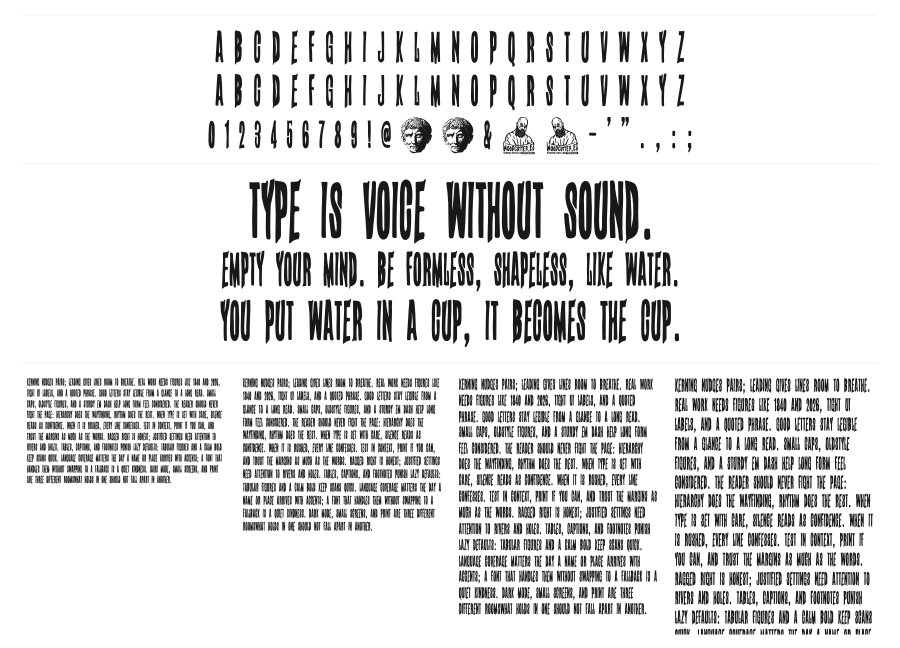
Caligula Corporation
Caligula Corporation is a tall, condensed display face from Woodcutter with heavy weight and deliberately rough, distressed edges throughout. It draws on blackletter structure but strips away elegance in favor of something more brutal and graphic. Strong for horror, metal, or underground branding where weight and menace are the point.